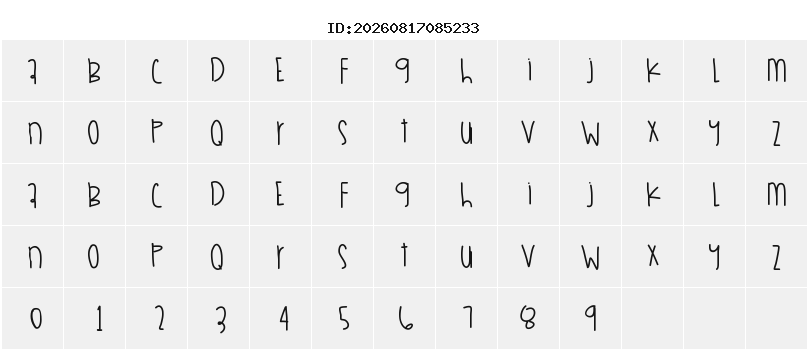
SouthBeaches9 Preview
• Font Name: SouthBeaches9
• Full Font Name: SouthBeaches9
About SouthBeaches9.ttf
SouthBeaches9.ttf is a modern, elegant sans-serif font designed for ultimate readability and visual harmony. Perfect for branding, headlines, web design, and print materials.